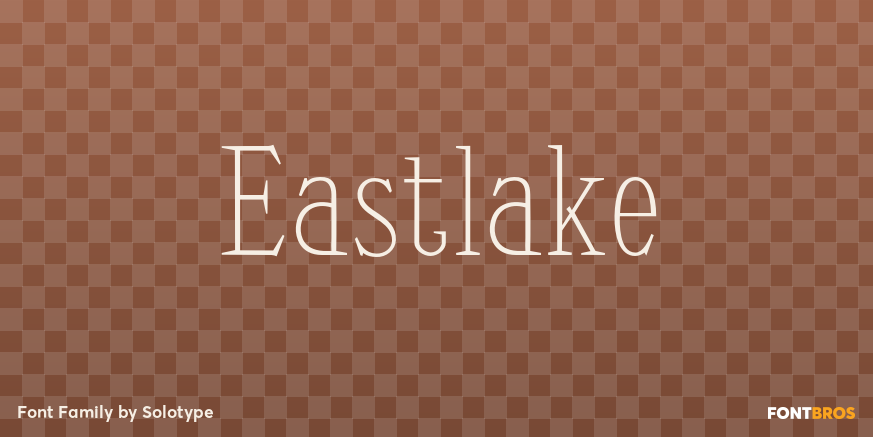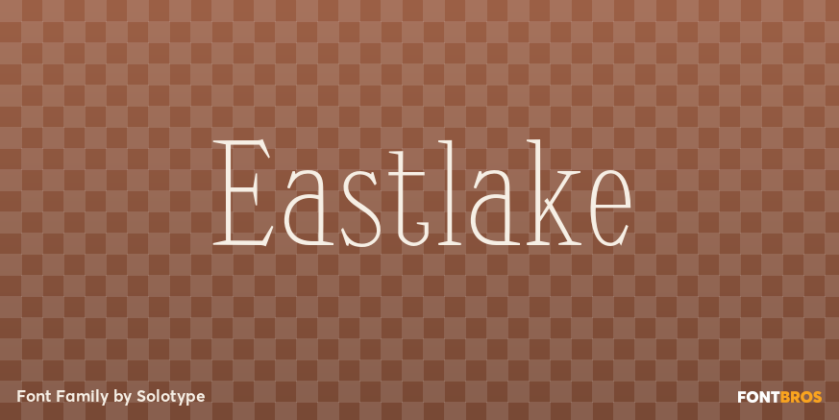
Eastlake
About Eastlake
Eastlake was a popular furniture style of the period when the MacKellar, Smiths & Jordan foundry brought out this font. As with many types, we find it difficult to see the connection between the name and the face.